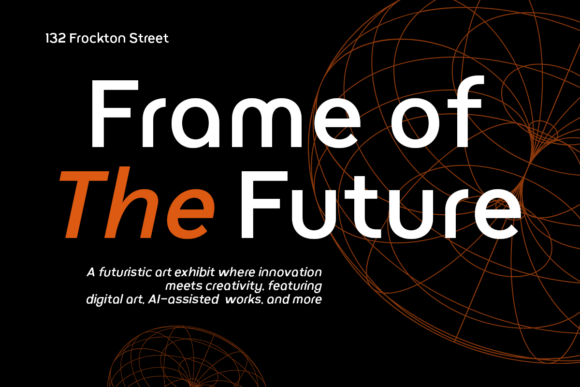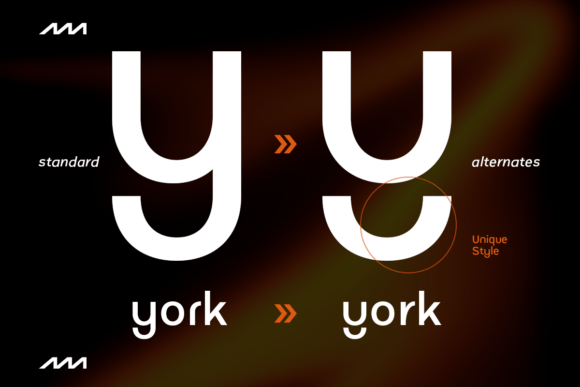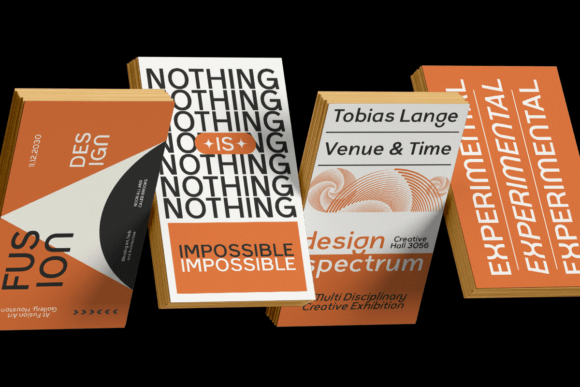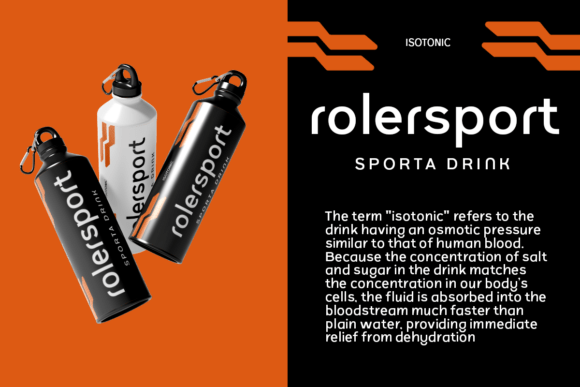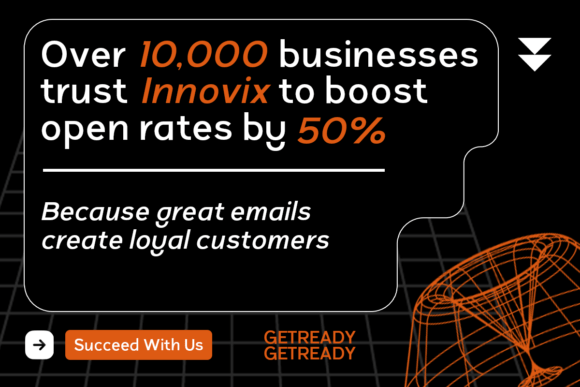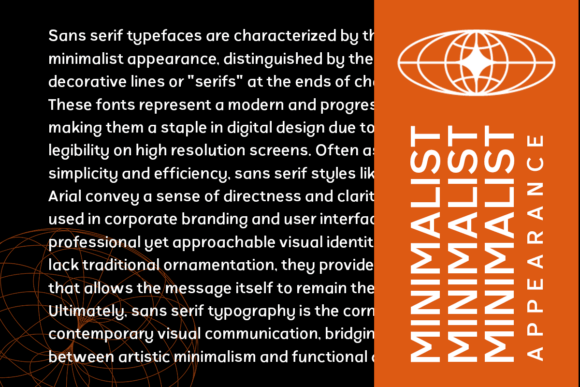
Gayen Font: Elevate Your Design with Modern Geometric Elegance
In the realm of typography, a font can make or break the visual identity of a design. For those seeking a modern, geometric, and sans-serif font that exudes clarity, strength, and futuristic elegance, Gayen Font is an exceptional choice. Crafted with precision and a keen eye for detail, Gayen is a versatile typeface designed to elevate your designs across various mediums.
The Essence of Gayen Font
Gayen is more than just a font; it’s a design statement. Its clean structures, balanced proportions, and smooth curves come together to create a powerful contemporary look that feels both bold and minimal. This delicate balance makes Gayen an ideal choice for designers and crafters looking to make a lasting impression. Whether you’re working on branding, logo design, UI/UX interfaces, web design, editorial layouts, social media content, advertising campaigns, or technology-based projects, Gayen delivers a professional typographic system that ensures high-impact visual communication.
Key Features of Gayen Font
- Geometric Foundation: At the heart of Gayen’s design is a geometric foundation that ensures excellent readability. This precise geometry, combined with refined spacing, creates a typographic system that stands out in digital and print media.
- Versatility: Gayen’s versatility is one of its most compelling attributes. It adapts seamlessly to multiple design environments, from startup branding and tech product visuals to corporate identities and creative portfolios.
- Modern Aesthetic: With its sleek form and clean character design, Gayen maintains a modern and progressive aesthetic. This makes it perfect for designers looking to infuse their work with a contemporary edge.
- Professional Typography: The font’s design ensures that it can be used for high-impact visual communication. Its balanced proportions and smooth curves contribute to its professional appearance, making it suitable for a wide range of applications.
Applications of Gayen Font
Gayen’s adaptability and aesthetic appeal make it an excellent choice for various design projects. Here are some areas where Gayen truly shines:
- Branding: Establish a strong brand identity with Gayen’s bold yet minimalistic design.
- Logo Design: Create memorable logos that stand out with Gayen’s unique geometric style.
- UI/UX Interfaces: Enhance user experience with a font that offers clarity and a modern look.
- Web Design: Elevate your website’s typography with a font that is both readable and visually appealing.
- Editorial Layouts: Add a professional touch to your publications with Gayen’s refined and elegant appearance.
- Social Media Content: Stand out on social media platforms with Gayen’s contemporary and engaging typography.
- Advertising Campaigns: Make a lasting impact with Gayen’s bold and geometric design.
- Technology-Based Projects: Perfect for tech-related projects, Gayen’s modern aesthetic fits right in.
Why Choose Gayen Font?
In a world where first impressions are crucial, Gayen Font offers designers and crafters a tool to create confident visuals. Its combination of geometric precision, modern elegance, and versatility makes it an invaluable asset for anyone looking to elevate their design work. With Gayen, you can:
- Enhance your designs with a professional and contemporary typographic system.
- Ensure readability and aesthetic appeal across digital and print media.
- Adapt your brand or project’s visual identity to various design environments seamlessly.
In conclusion, Gayen Font is a powerful tool for designers and crafters aiming to make a statement with their work. Its modern geometric sans-serif design, coupled with its versatility and professional typography, makes it an ideal choice for a wide range of design projects. By choosing Gayen, you’re not just selecting a font; you’re embracing a design philosophy that values clarity, strength, and futuristic elegance.